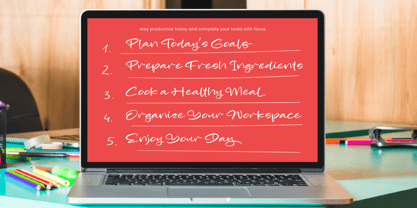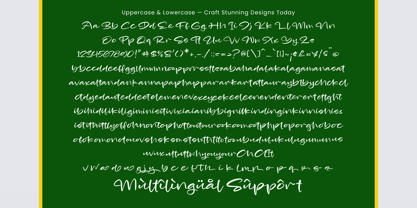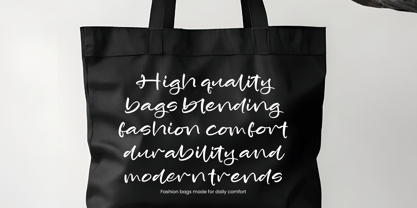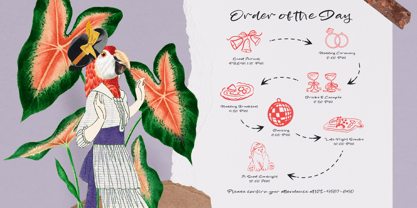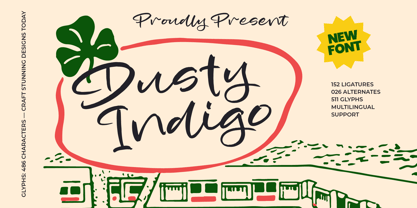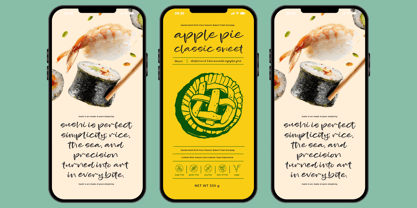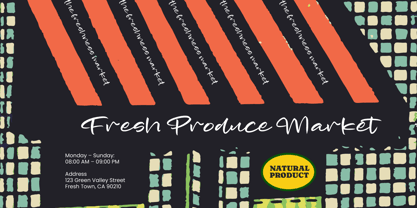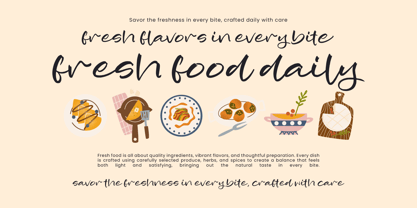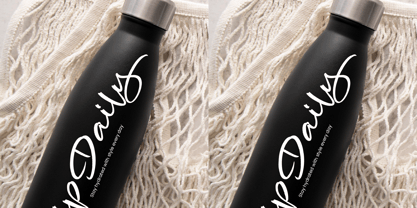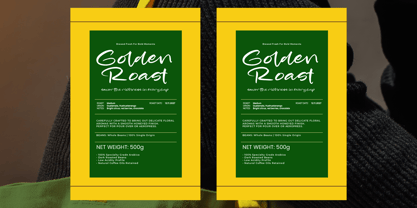
Dusty Indigo
The Dusty Indigo Font Family was designed by Heru Utama Putra and published by Stylishtype Studio. Dusty Indigo contains 2 styles and family package options. More about this family
Dusty Indigo – Handwritten Script Font Dusty Indigo is a vibrant and expressive handwritten font that brings a personal touch and a playful spirit to any design. With 152 ligatures, 26 alternates, and 511 glyphs, this font offers a delightful flow that can enhance your creative projects. It’s perfect for adding a fresh, dynamic vibe to your designs, with a modern script style that feels organic and spontaneous. The unique combination of bold strokes and fluid curves creates a casual yet stylish look, making it ideal for branding, headlines, product packaging, and creative typography projects. Whether you’re designing for fun, lifestyle brands, or even personal blogs, Dusty Indigo will add a relaxed yet modern feel to your typography.